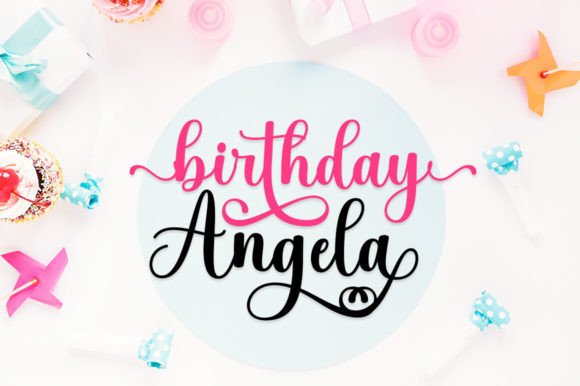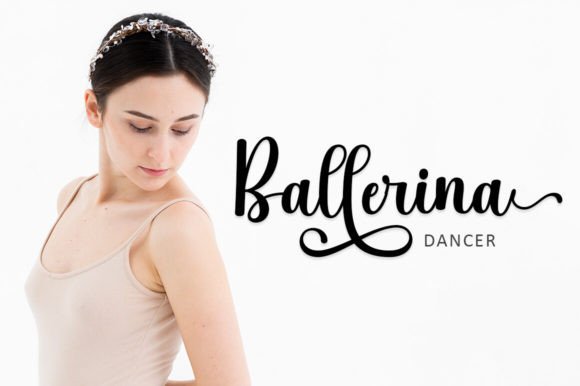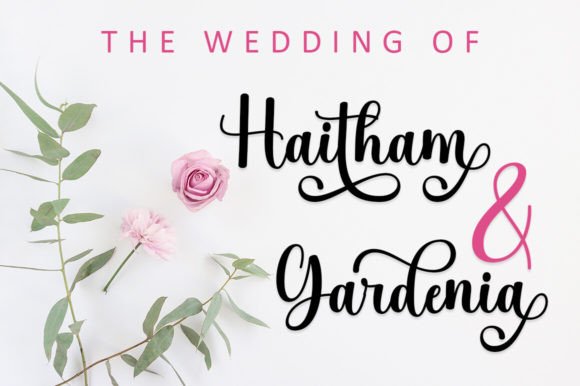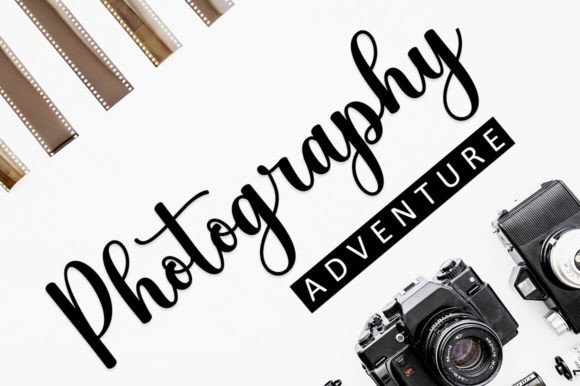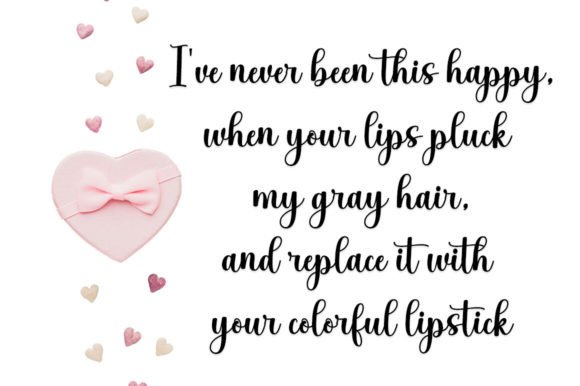
The Designer’s Delight: Getting to Know the Chester Font
I’ll never forget the time I was working on a branding project for a trendy coffee shop. My client wanted a bold, eye-catching logo that would stand out on a crowded high street. I spent hours scrolling through font libraries, but nothing seemed quite right. That was until I stumbled upon the Chester font. Its confident, dynamic strokes immediately caught my attention, and I knew I had found the perfect fit. In this article, I’ll share my love for the Chester font, its features, and how to make the most of it in your designs.
An Honest Review of Chester Font
What I Love About Chester Font
- ✨ Bold and confident: Chester font exudes strength and dynamism, making it perfect for headlines and logotype projects.
- ✅ Nostalgic character: This font has a unique, nostalgic feel that adds a touch of personality to your designs.
- 🌈 Versatile: Chester font works well in a variety of design contexts, from modern branding to vintage-inspired projects.
While Chester font is an excellent choice for many projects, there are a few things to keep in mind:
- 🤔 Legibility at small sizes: As with many bold, handwritten fonts, Chester may become less legible at very small sizes. It’s best used at larger sizes, such as headlines or titles.
- ⚠️ Overuse: While Chester font is stunning, using it excessively can make your design feel overwhelming. Balance is key.
The Story Behind Chester Font
Chester font was designed with the intention of creating a bold, eye-catching font that would add a touch of personality to any design. Inspired by classic handwritten fonts, Chester’s creator aimed to craft a font that would be both nostalgic and modern. The result is a font that’s perfect for designers looking to add a bit of flair to their projects.
Q: What type of projects is Chester font best suited for?
A: Chester font is perfect for headlines, logotype projects, and any design that requires a bold, confident look.
Q: Is Chester font available in different weights or styles?
A: Currently, Chester font is available in a single weight. However, some font libraries may offer variations or alternatives.